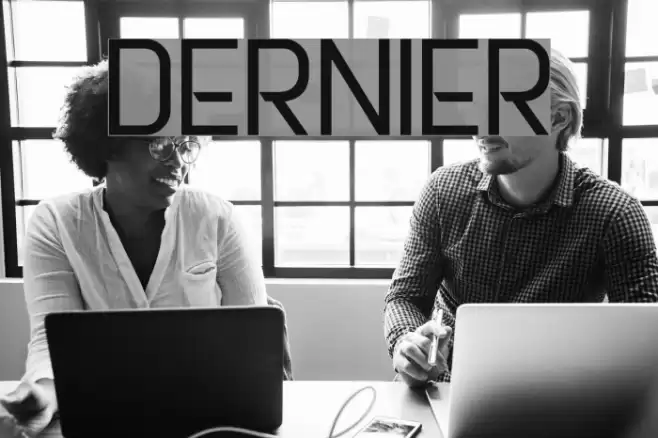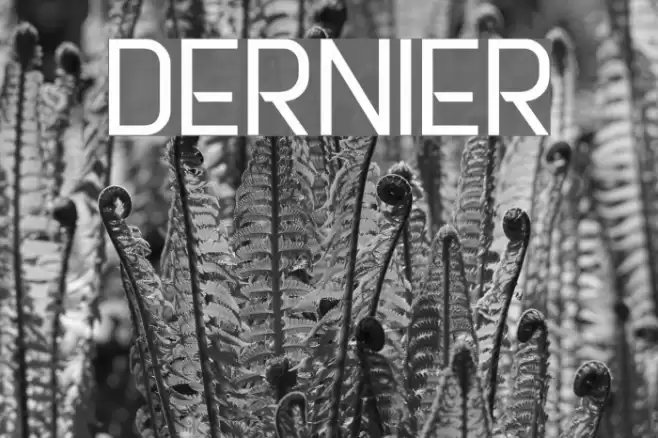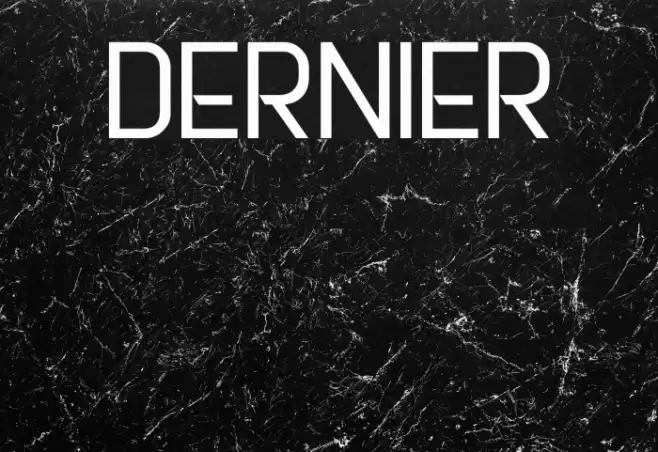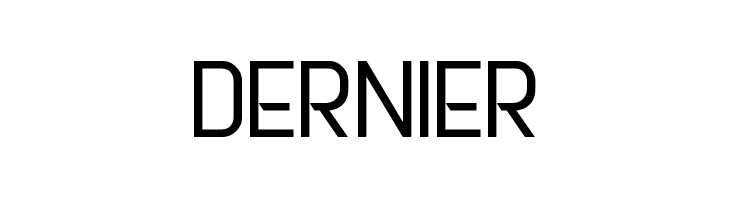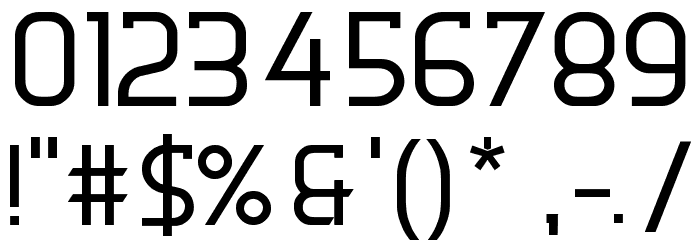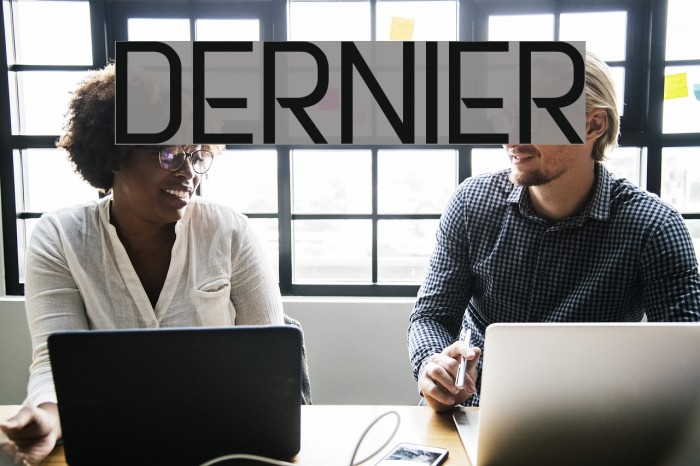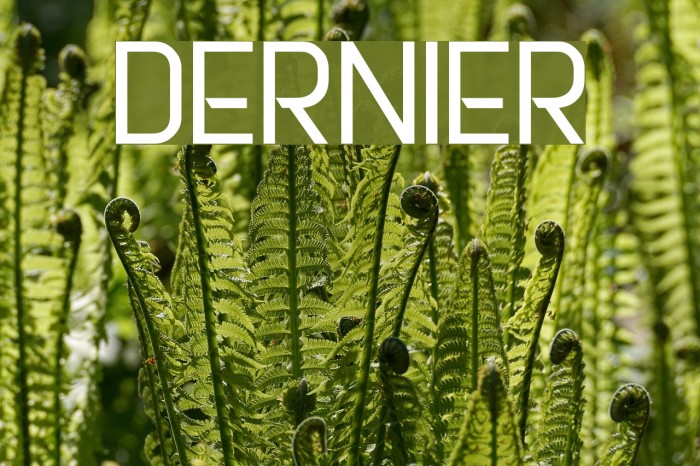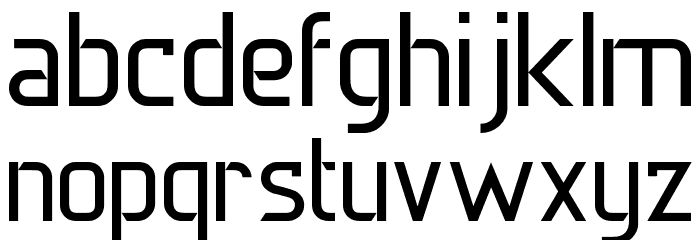
DERNIER Font
DERNIER Description
This font features a modern and geometric design with clean lines and a structured appearance. The characters are uniform in width, providing a balanced and cohesive look. The uppercase and lowercase letters maintain a consistent style, with slightly rounded edges that soften the overall sharpness. The numerals are clear and easy to read, complementing the alphabetic characters. Special characters are well-integrated, maintaining the font's sleek and contemporary aesthetic. This font is versatile, suitable for both digital and print media, and can be used in various design projects requiring a modern touch.
A modern, geometric font with clean lines and a structured appearance from Uncategorized fonts.
- Proposed Projects: Ideal for branding, digital interfaces, editorial design, and advertising campaigns.